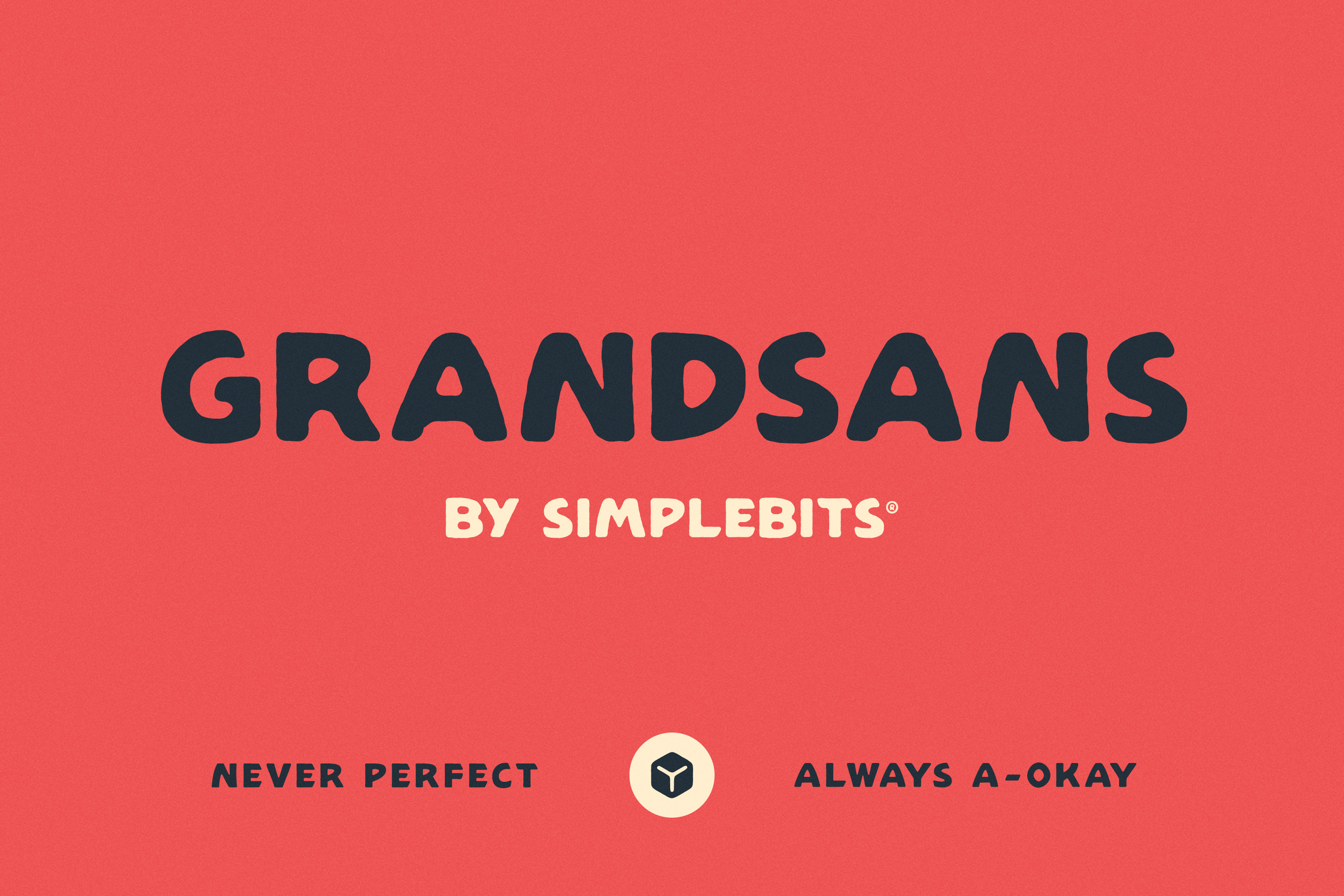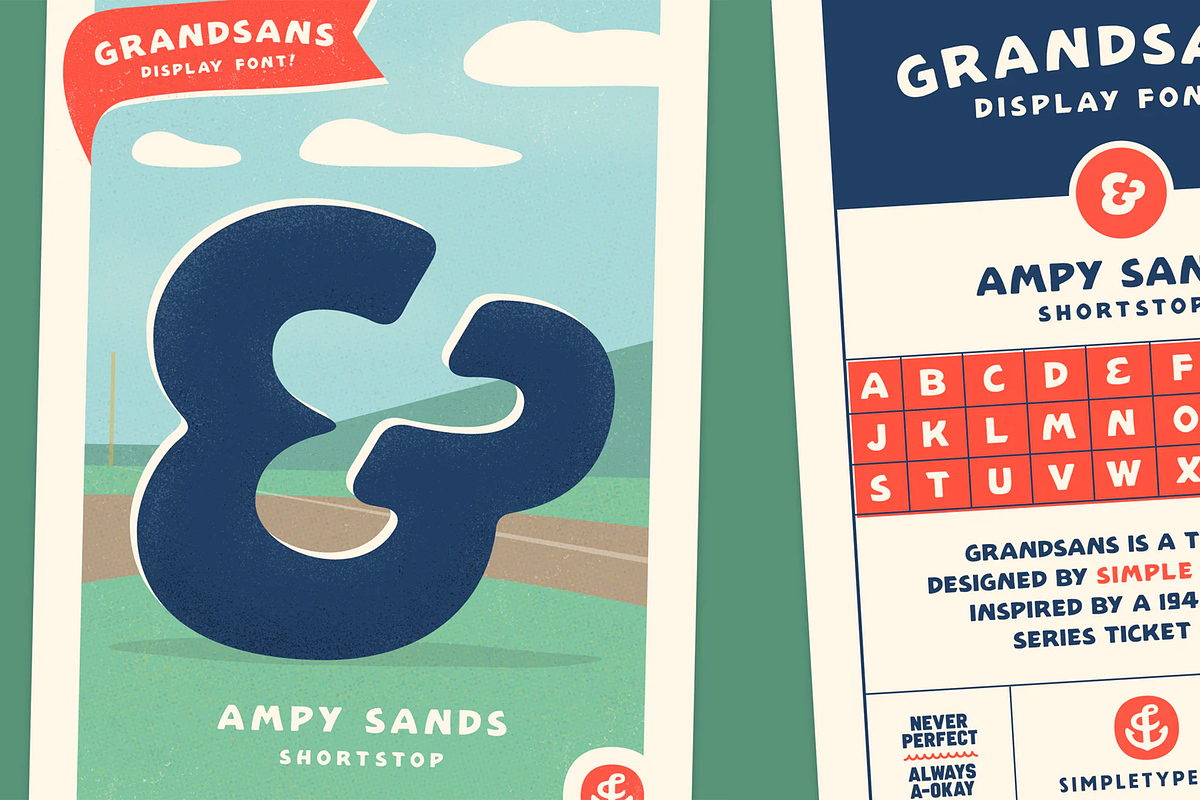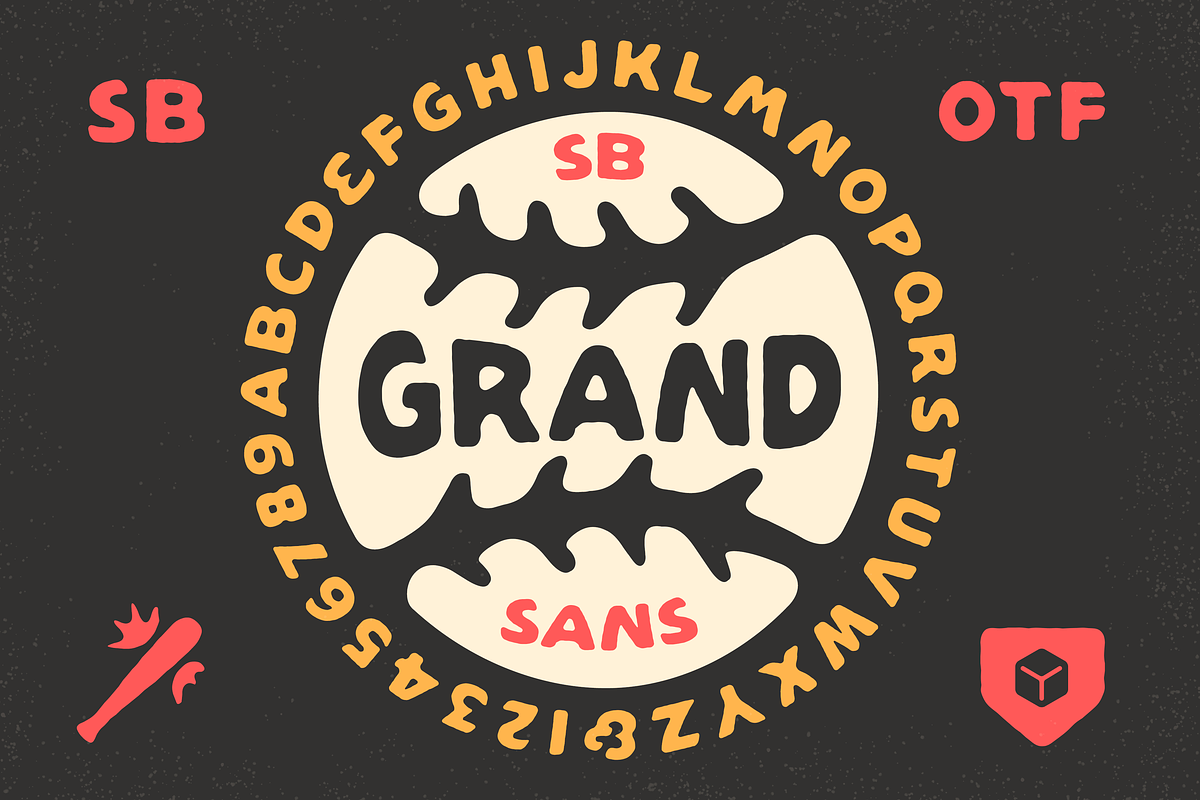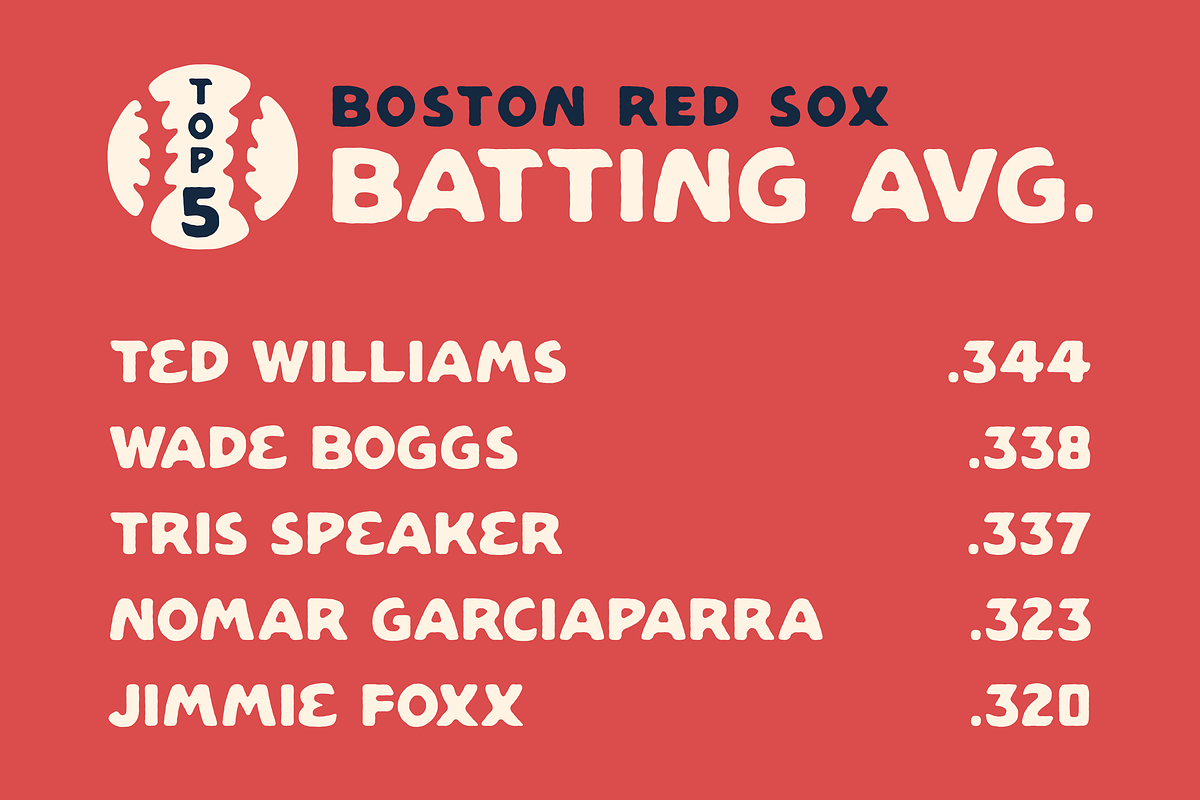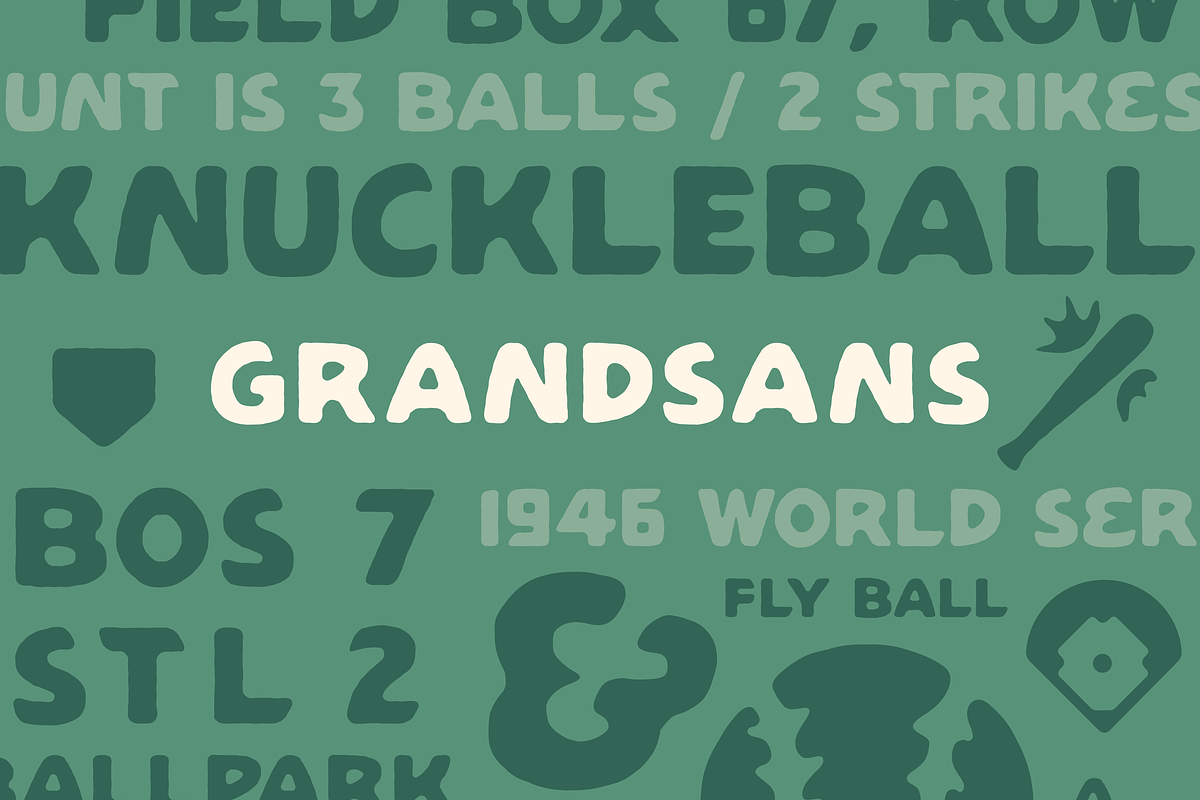
Grandsans — Vintage lettering font
I've been a lifelong Red Sox fan. There's so much nostalgia and history embedded in the game of baseball. The signage around Boston's Fenway Park has always captured my attention. Thick, cream paint on green iron and tin around the ballpark. The letterforms are often classic-but-handmade.
It was an old ticket stub from the 1946 World Series (Boston vs. St. Louis) that inspired the Grandsans typeface. It has a sign-painterly feel, early-mid twentieth century sensibility, and a quirky character—especially in letters like E, M, N. It was fun filling out the alphabet based on those handful of letters found on the ticket.
The family includes two styles: Regular and Rough. All-caps with numbers, basic punctuation and a few alternates and special glyphs for maximum vintage baseball vibes. Even a backwards K for scorekeeping those "strike out swinging" plays.